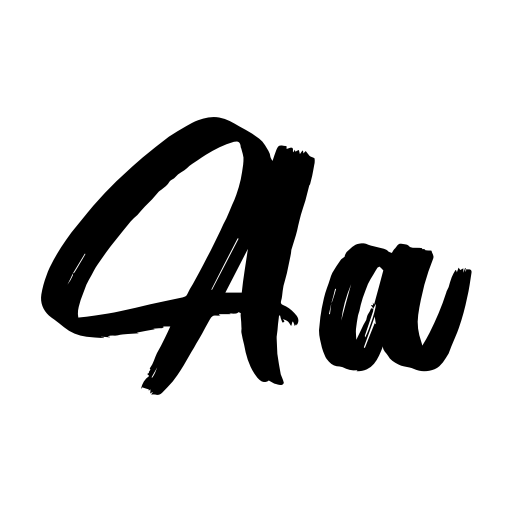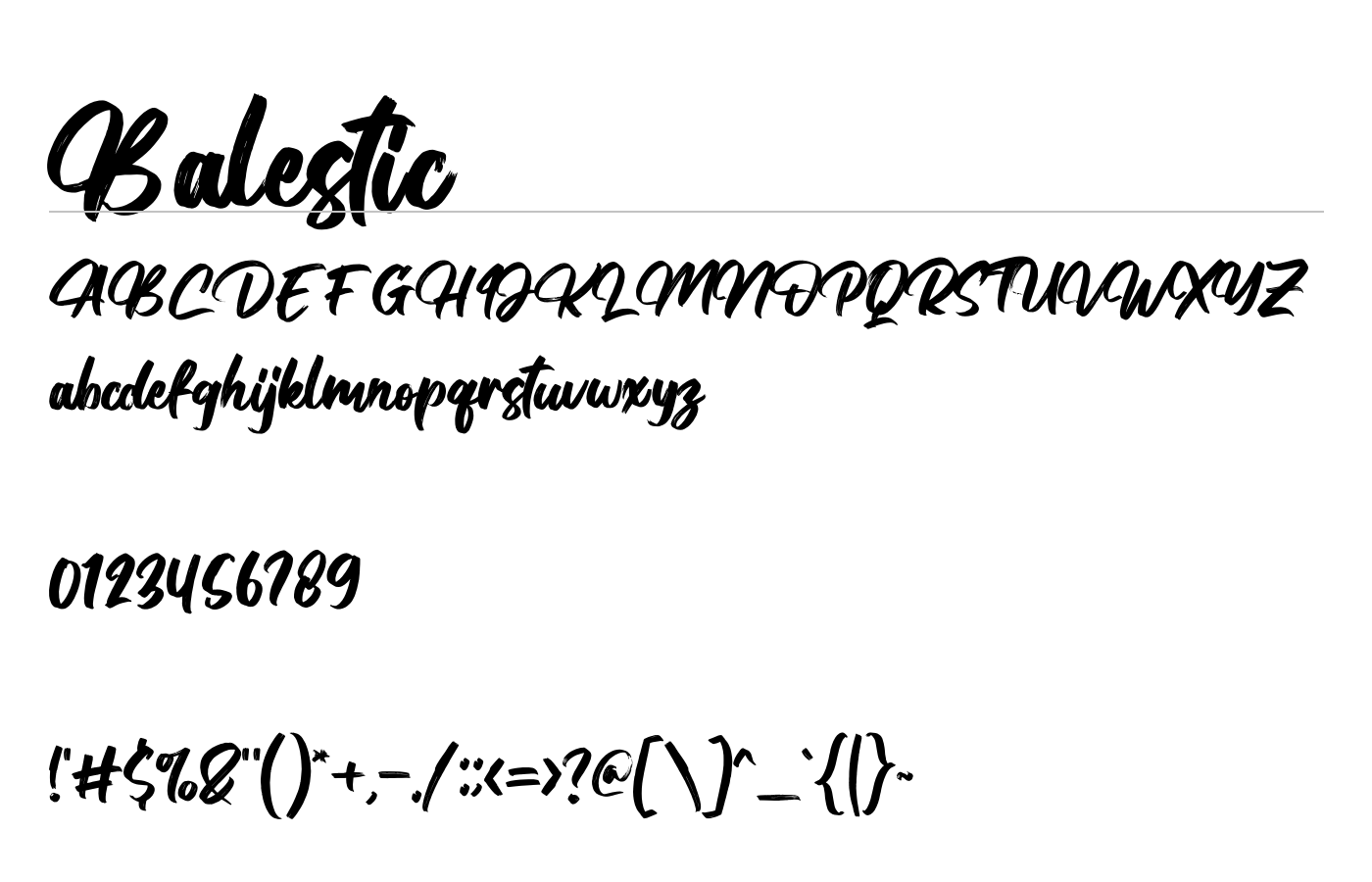
Balestic is a bold, brush script font with a dynamic, hand-painted feel that brings energy and personality to any design. Its thick strokes and natural, flowing shapes make it perfect for creative branding, logos, and eye-catching headlines that need a lively, artistic touch. This font works wonderfully for projects wanting a modern yet approachable look with a handcrafted vibe.
Balestic Font
About Balestic Font
| Font family | Balestic Font |